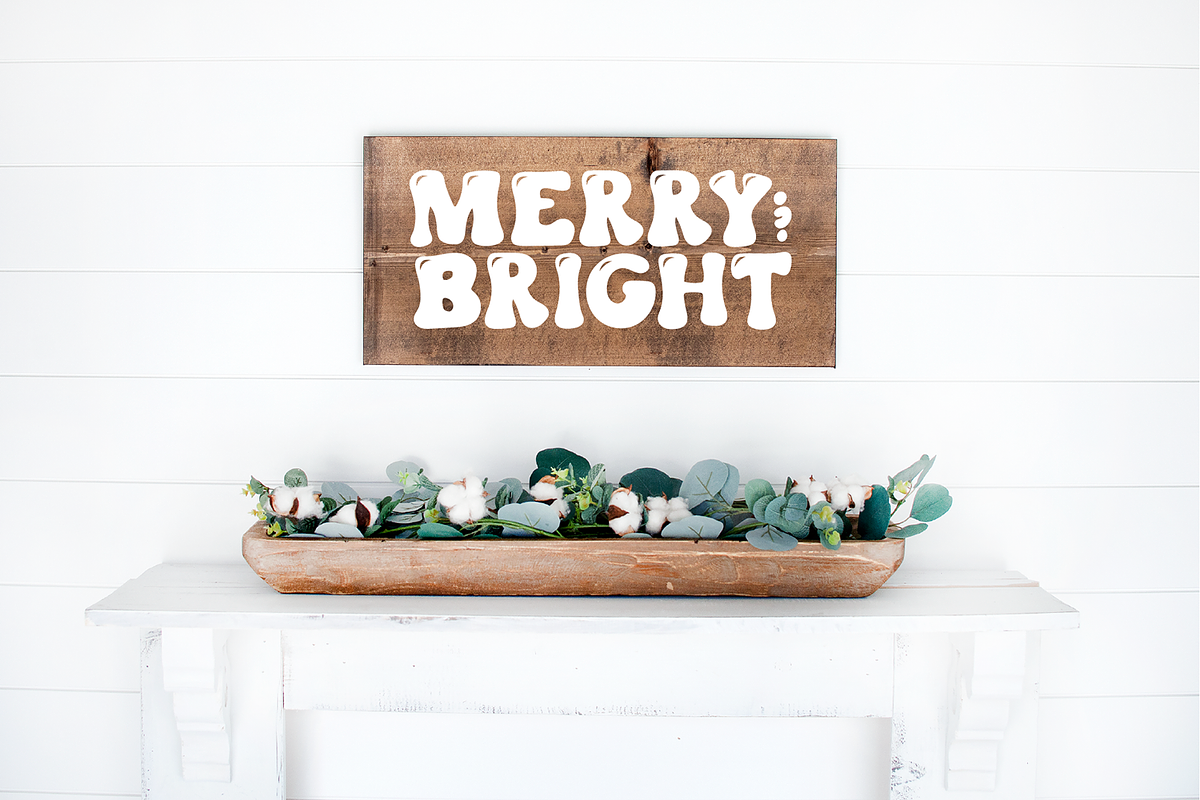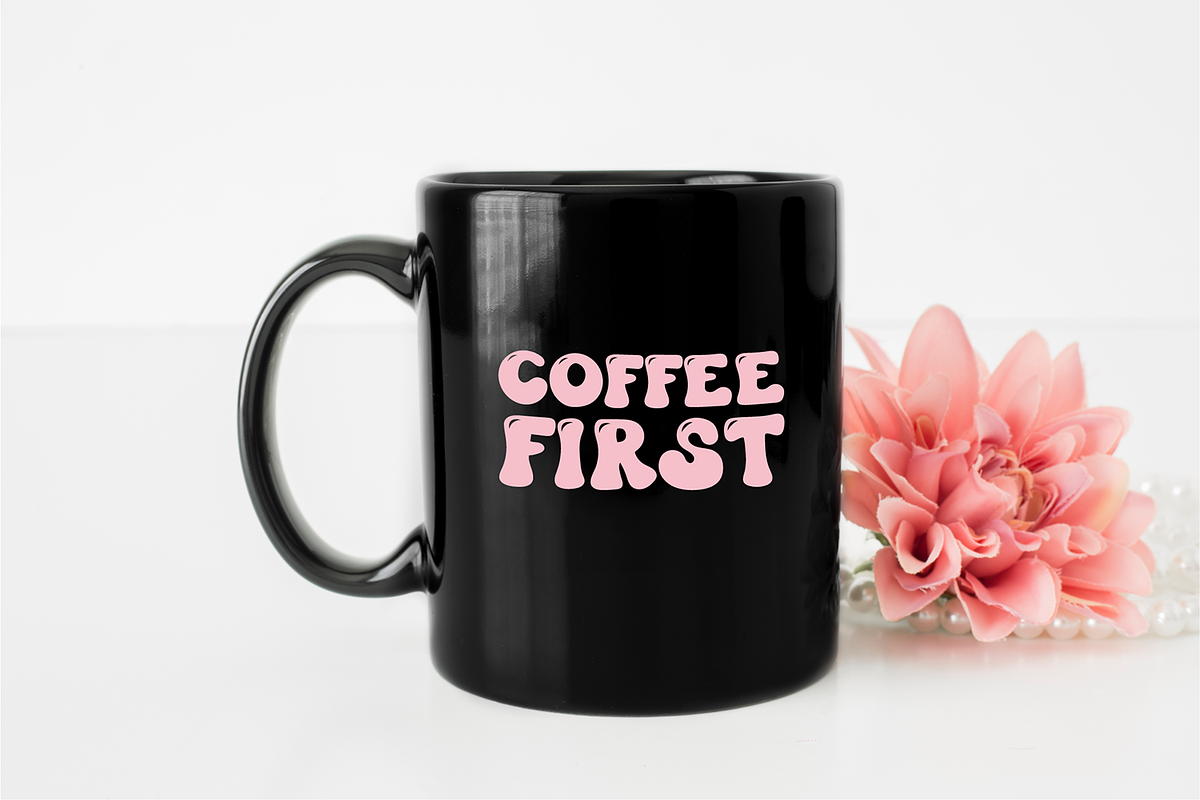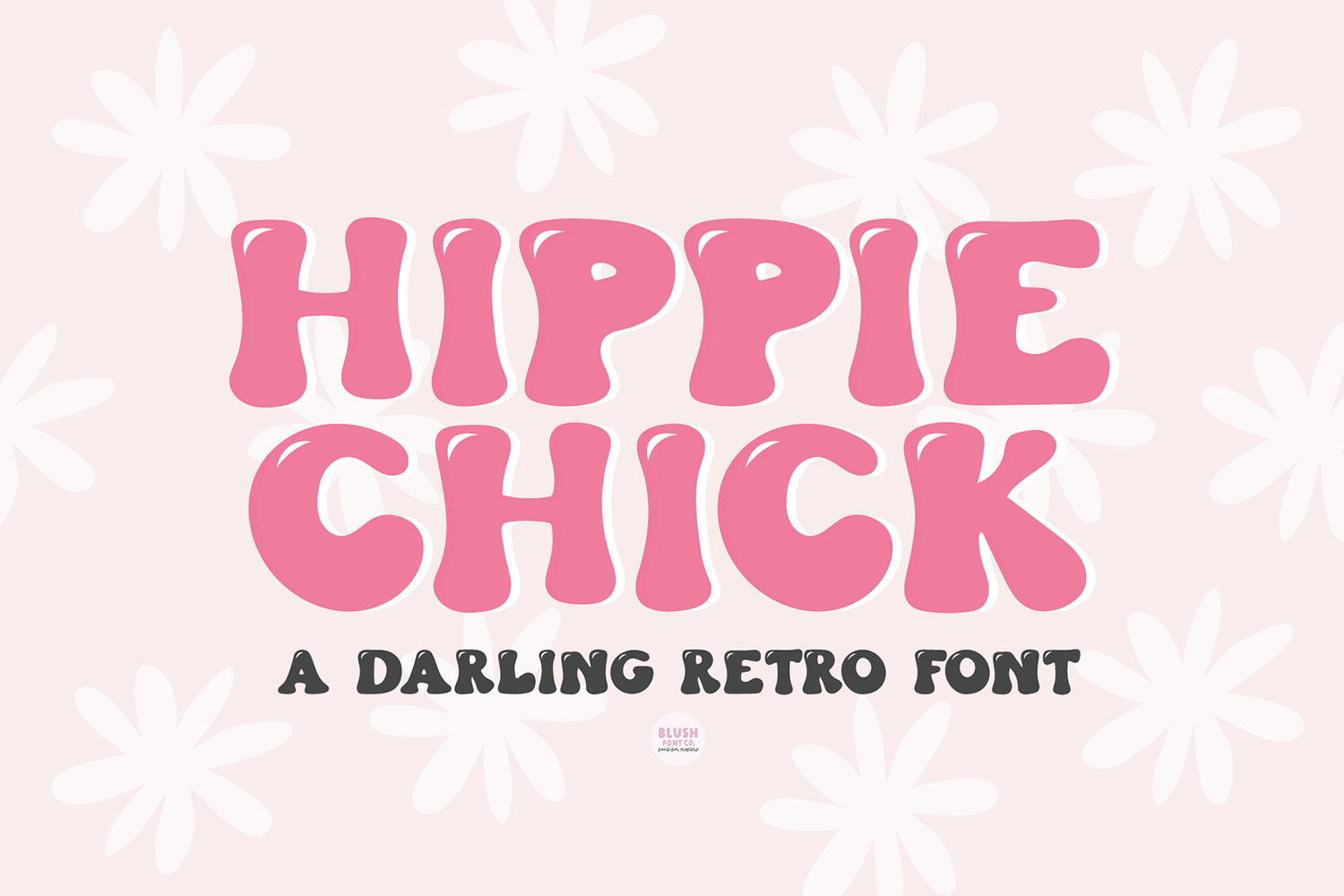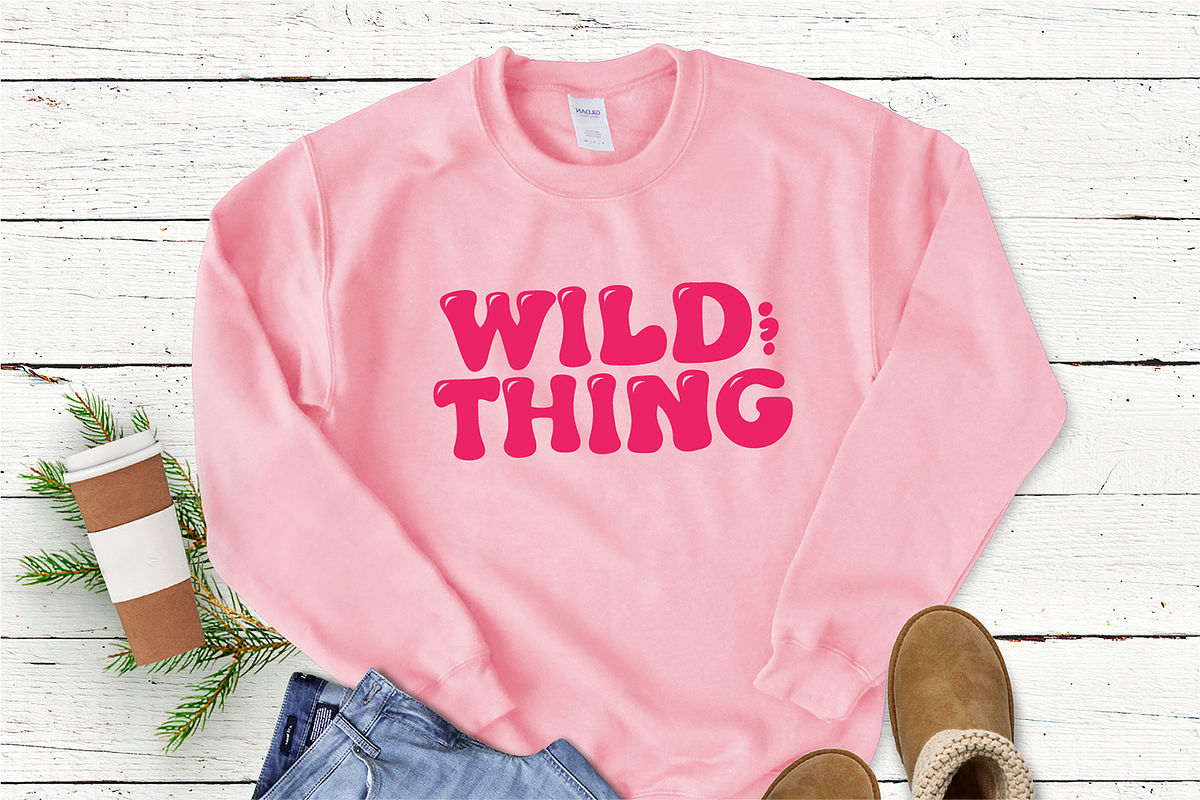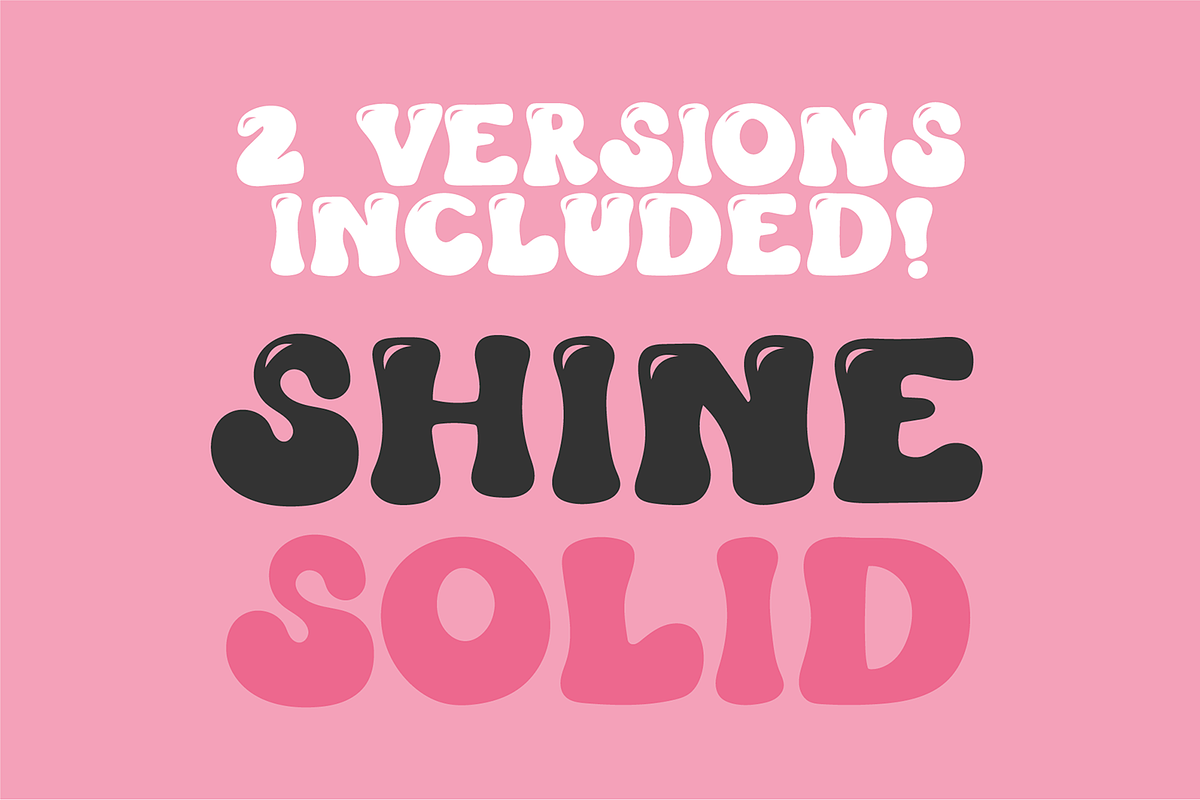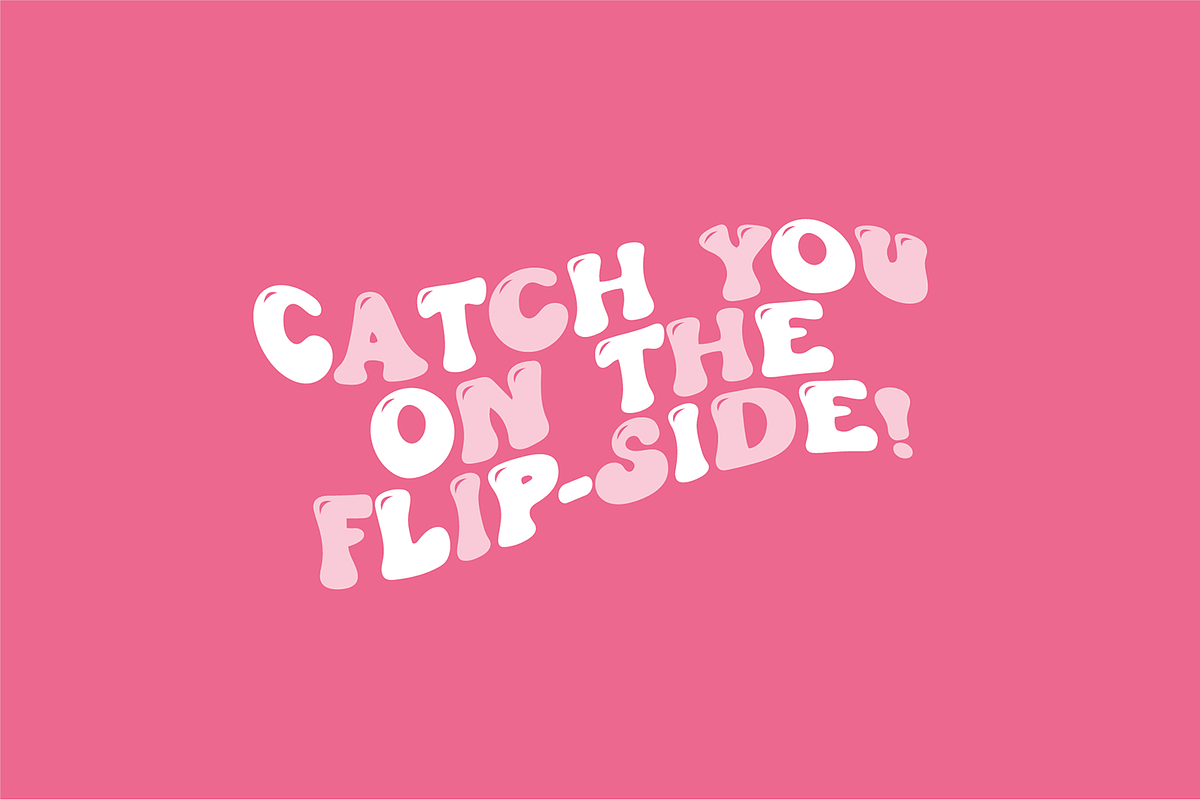
HIPPIE CHICK Retro Serif Font
"Hippie Chick" handwritten retro font - 2 fonts included! Shine & Solid.
Hippie Chick is a stylish serif boho font that is perfect for social media or crafty projects. Use it for branding, procreate, crafts for decor, invitations, and more! This font includes all caps glyphs, numbers, and basic punctuation marks. 2 versions included!